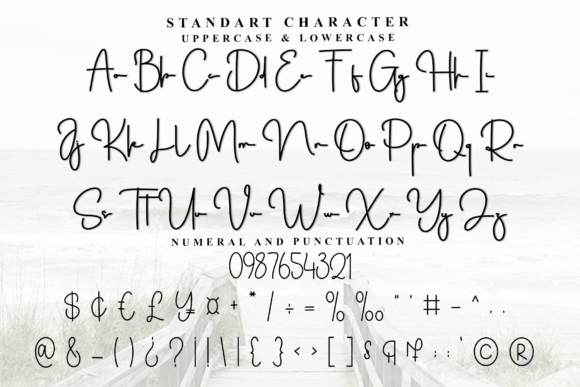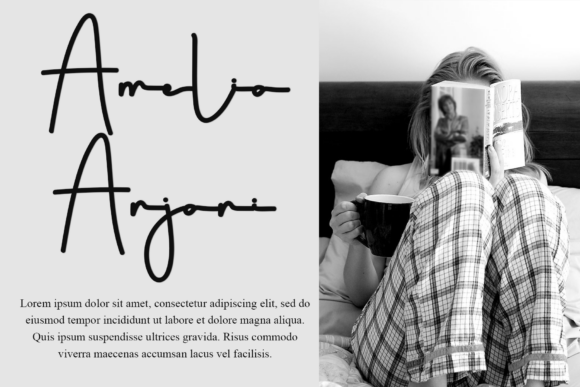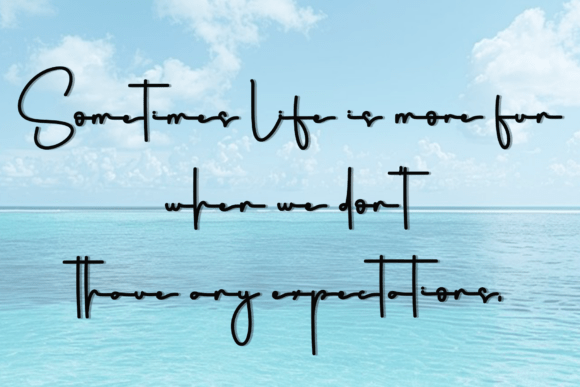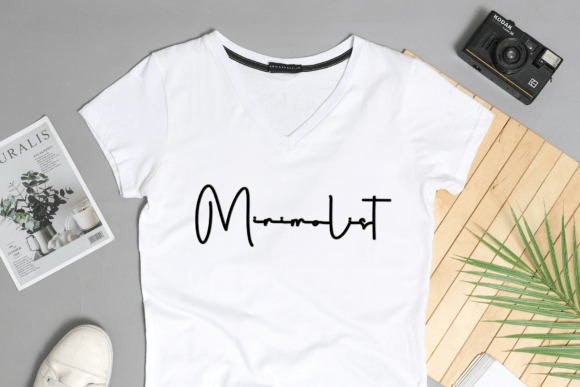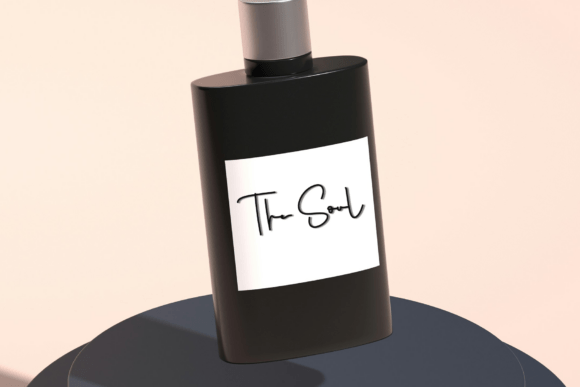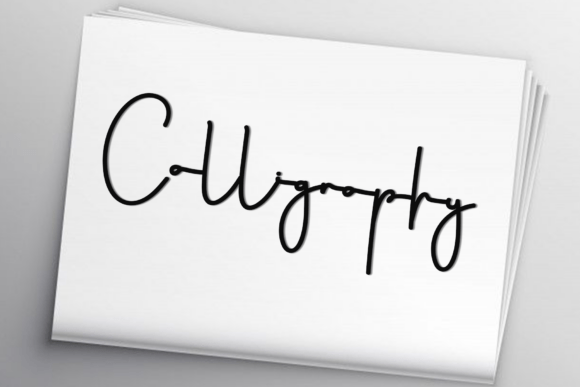
Introduction to Signatie Font
As you sit at your desk, surrounded by papers, glue, and glitter, you know it’s that time of the year – the holiday season is just around the corner. You’re looking for the perfect font to add a touch of magic to your greeting cards, gift tags, and other creative projects. And then, you stumble upon it – the Signatie Font. This enchanting typeface is sure to bring a smile to your face and a twinkle to your designs.
With its festive and merry vibe, the Signatie Font is a valuable asset for designers who want to add a high-quality and unique touch to their work. Whether you’re working on a commercial project or a personal creative endeavor, this font is sure to shine. Plus, with its transparent background and PUA encoding, you can easily access all the amazing glyphs and ligatures, making it a free download that’s hard to resist.
Key Features of Signatie Font
- High-quality design with a transparent background, making it ideal for creative projects.
- Unique, modern aesthetic that can add a touch of sophistication to any creative project.
- Supports a wide range of languages, making it a versatile design resource for global projects.
Honest Review: Signatie Font
As a designer, I’ve had my fair share of experimenting with different fonts to find the perfect match for my creative projects. The Signatie Font caught my attention due to its unique blend of elegance and modernity. Here’s my take on this design resource.
- ✨ High quality design: The Signatie Font boasts crisp lines and well-defined characters, making it perfect for professional use.
- ✨ Transparent background: This feature is particularly useful when working on projects that require a subtle background, allowing the text to take center stage.
- ⚠️ Limited font weights: While the Signatie Font offers a range of styles, the number of available font weights is somewhat limited, which may restrict its use in certain situations.
- ⚠️ Not ideal for small text: The font’s design makes it better suited for larger text sizes, as it may become difficult to read when used at smaller sizes.
Overall, I’d say the Signatie Font is a solid addition to any designer’s toolkit. While it may have some limitations, its high quality design and free download make it a great resource to have on hand. I’d definitely recommend giving it a try for your next creative project!
How to Use Signatie Font
The Signatie Font is a high-quality, free download design resource perfect for any creative project. With its unique and elegant style, it’s ideal for adding a touch of sophistication to your designs.
The Signatie Font is perfect for use in a variety of creative projects, including:
- Magazine and book covers
Tips for Getting the Most Out of Signatie Font
To get the most out of the Signatie Font, try using it with a transparent background to create a sense of depth and dimension. You can also pair it with other fonts to create a unique and eye-catching design.